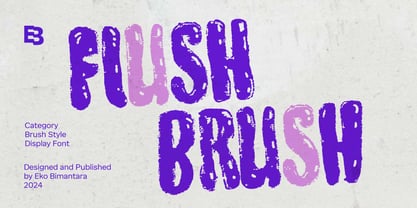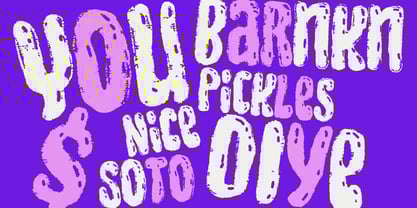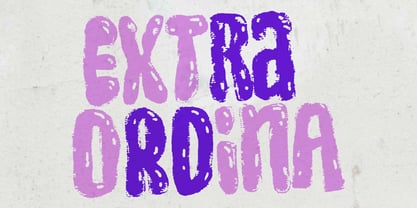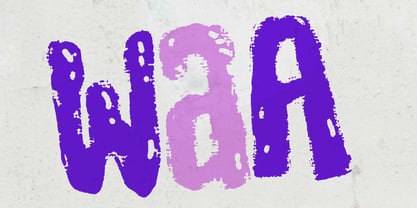
Flush Brush
by Eko Bimantara
The Flush Brush Font Family was designed by Eko Bimantara and published by Eko Bimantara. Flush Brush contains 1 styles.
Flush Brush is an artistic brush display font with a condensed, scatter style and quirky, fun personality. Featuring a unique unicase design, it adds a bold, expressive touch to any project. Perfect for themes such as artistic, rough, and quirky design, it brings a distinctive, creative flair. Ideal for display use in large sizes, titles, headers, website designs, brand identities, product packaging, and more, Flush Brush makes an impact in a wide range of graphic and creative projects.
About Eko Bimantara
Eko Bimantara is a type designer from Indonesia. Always has an intention to creating fonts that not only look great but also perform across a wide range of mediums and also across wide range of theme. The goal is to give designers the tools to make their projects that speaks a lot with various expression. Eko Bimantara’s fonts are featured in everything from corporate identities to street art posters, and have numerous ideas and concept ready to expand for fresh fonts for years further.